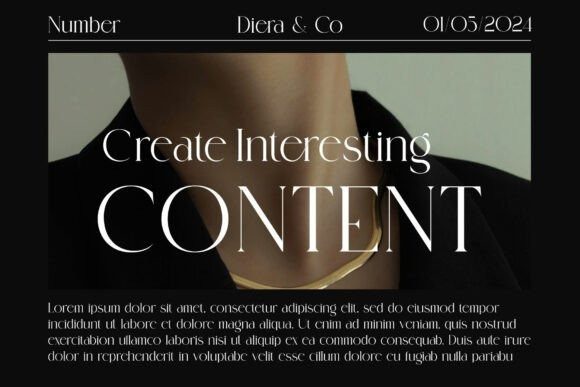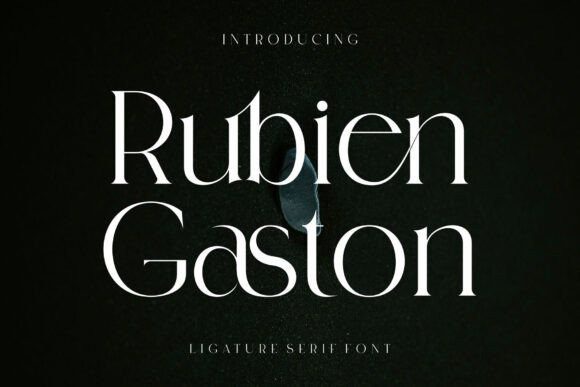
Rubien Gaston Font
Rubien Gaston Font Modern and elegant Serif typeface inspired by famous minimalist logos, perfect for template design purposes, flyers, videos, advertising branding, logos, invitations, layout design, elegant crafts, beauty design and other purposes